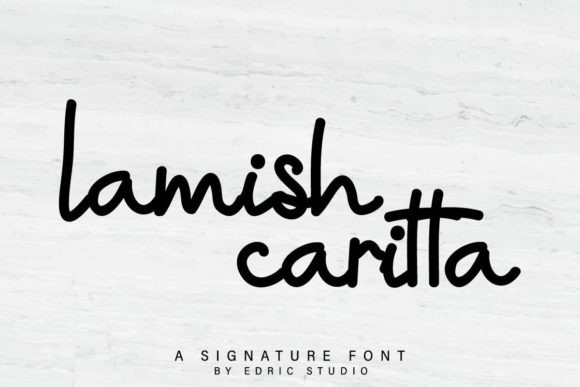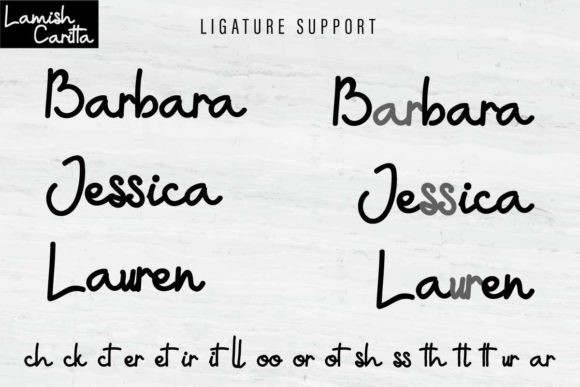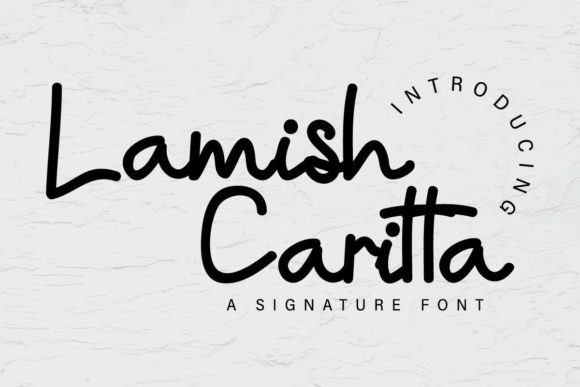
Lamish Caritta Font
Lamish Caritta is a gorgeous and sweet handwritten font. Both flowing and friendly, this font is the perfect match for a wide variety of designs. Your imagination is the limit!